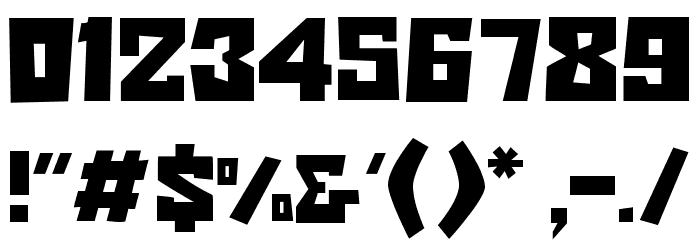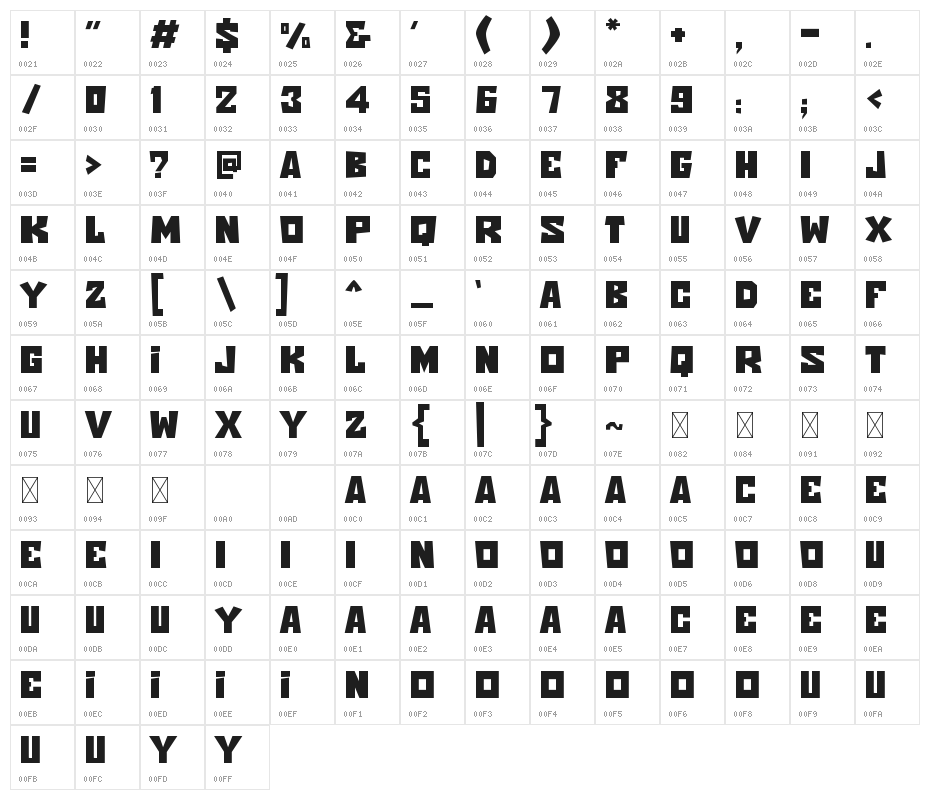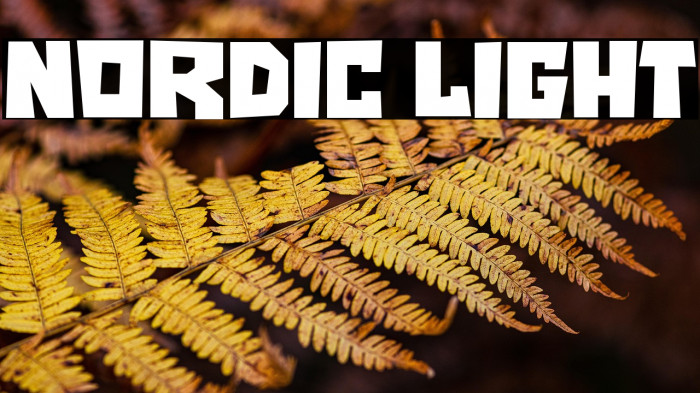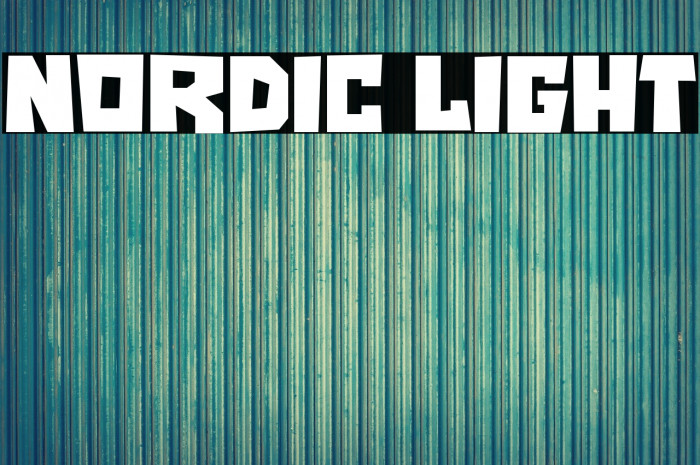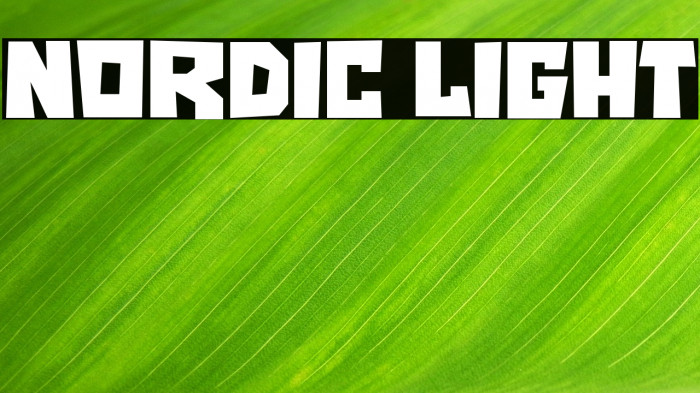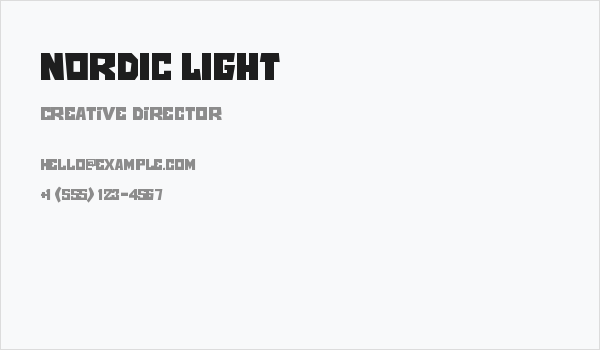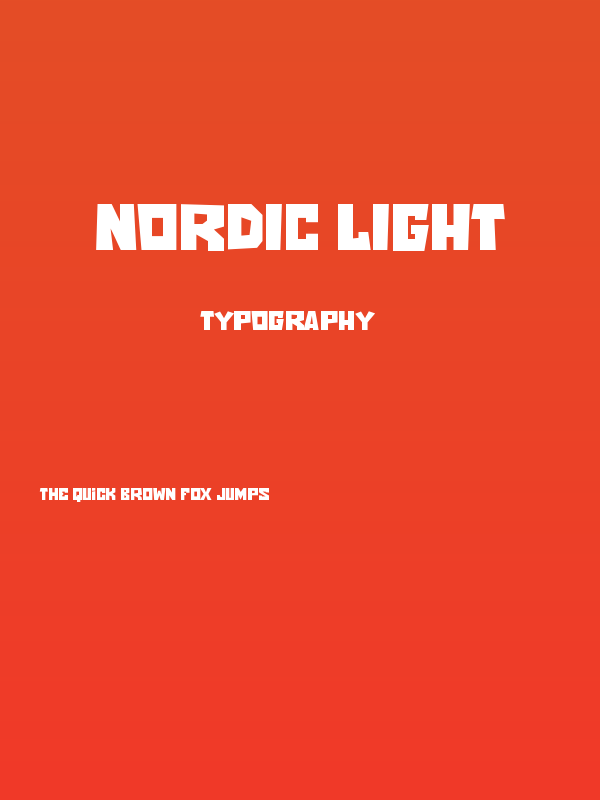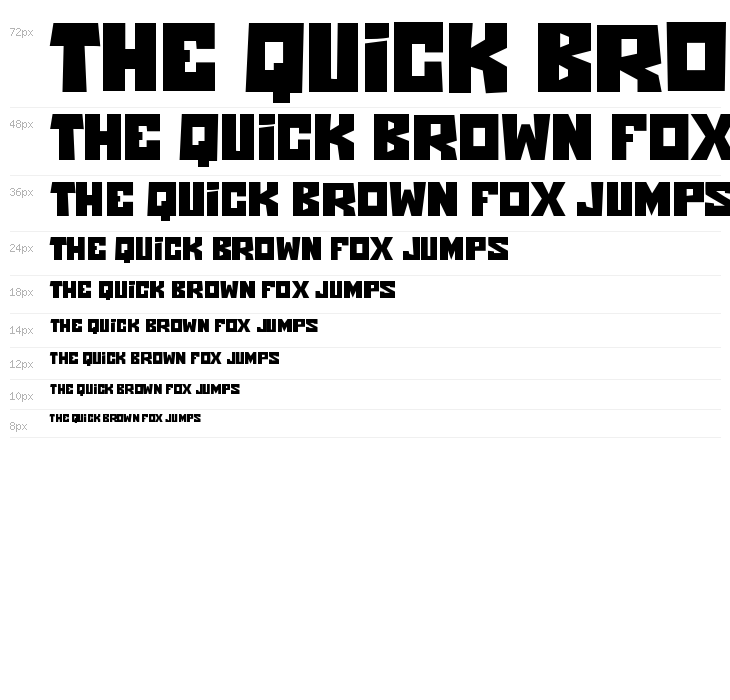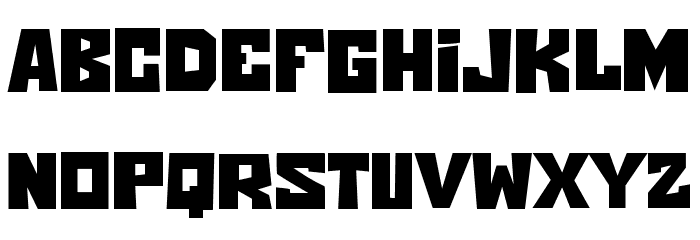
NORDIC LIGHT Font
NORDIC LIGHT Description
This font features a bold and geometric style with sharp angles and a strong presence. The uppercase letters are blocky and assertive, creating a sense of strength and modernity. The numbers and special characters maintain this bold, angular aesthetic, ensuring consistency across all characters. The font's design is reminiscent of Nordic or Viking themes, with a rugged, sturdy appearance that suggests durability and resilience. It is particularly well-suited for projects that require a strong visual impact, such as branding, posters, or headlines. The font's unique style makes it stand out, offering a distinctive look that can enhance creative projects.
| Proposed Projects | Ideal for branding, posters, headlines, and any project needing a strong visual impact. |